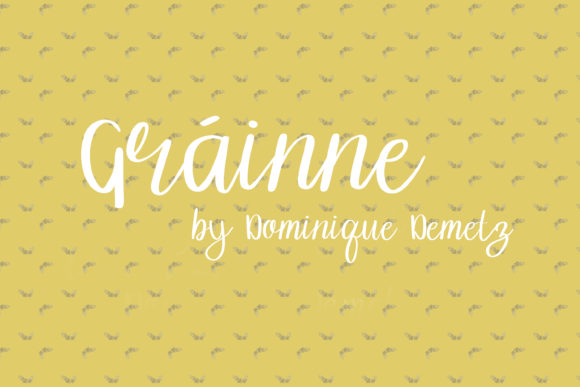
Prepare to be entranced by Gráinne, a captivating script font that exudes charm and a hint of whimsy. Its enchanting curves dance across the page, reminiscent of a graceful penmanship that effortlessly transforms your words into art.
Gráinne's playful spirit shines through in every stroke, making it the ideal choice for adding a touch of magic to your creative projects. Imagine your wedding invitations adorned with the elegant swirls of Gráinne, setting the tone for a day filled with love and celebration. Let your birthday cards burst with heartfelt messages penned in Gráinne's enchanting script, carrying your well wishes with a touch of warmth and joy.
Not only is Gráinne a visual masterpiece, but it's also incredibly versatile. Whether you're scrapbooking your cherished memories or designing a unique logo for your brand, Gráinne's adaptable nature makes it the perfect companion for any occasion. Its ability to effortlessly blend with other fonts adds a layer of sophistication to your designs, allowing you to create visually stunning masterpieces that leave a lasting impression.
As a member of the distinguished calligraphy fonts family, Gráinne inherits a rich heritage of artistic excellence. Its creator, Dominique Demetz, has poured their heart and soul into crafting each character, ensuring that every letter is a testament to the beauty of written expression.